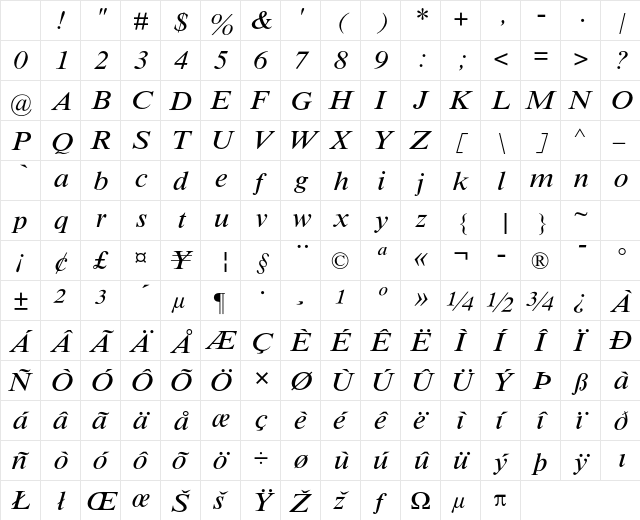
Times Small Text MT Std Italic
Complete Times Small Text MT Std Italic glyph index. Displaying only characters natively supported by Times Small Text MT Std Italic font.
Design Context for Times Small Text MT Std
Times Small Text MT Std is a composed and adaptable typeface that performs quietly and consistently across a wide range of design contexts. The slanted form adds forward momentum and visual energy.
Pro Tip: Use Times Small Text MT Std for emphasis, pull quotes, and subheadings where its slanted energy can add rhythm to the layout.